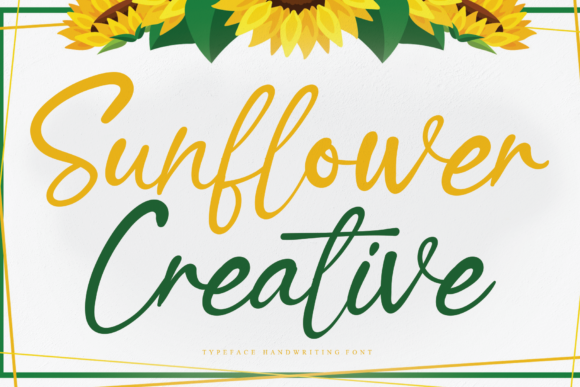
Sunflower Creative Font
About Sunflower Creative Font
Sunflower Creative is an elegant and dainty handwritten font that features sweet and delicate swashes. This original look will appeal to a wide range of crafty ideas, from letterheads and titles, to stationery.